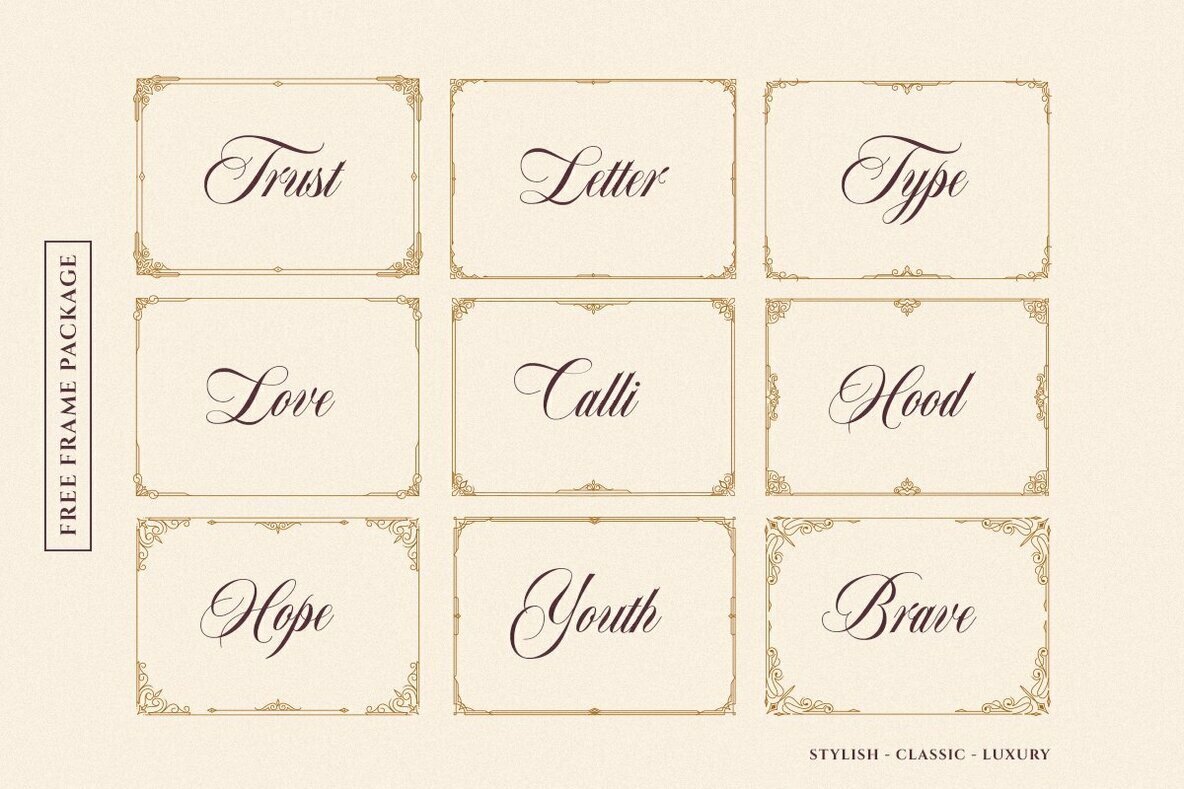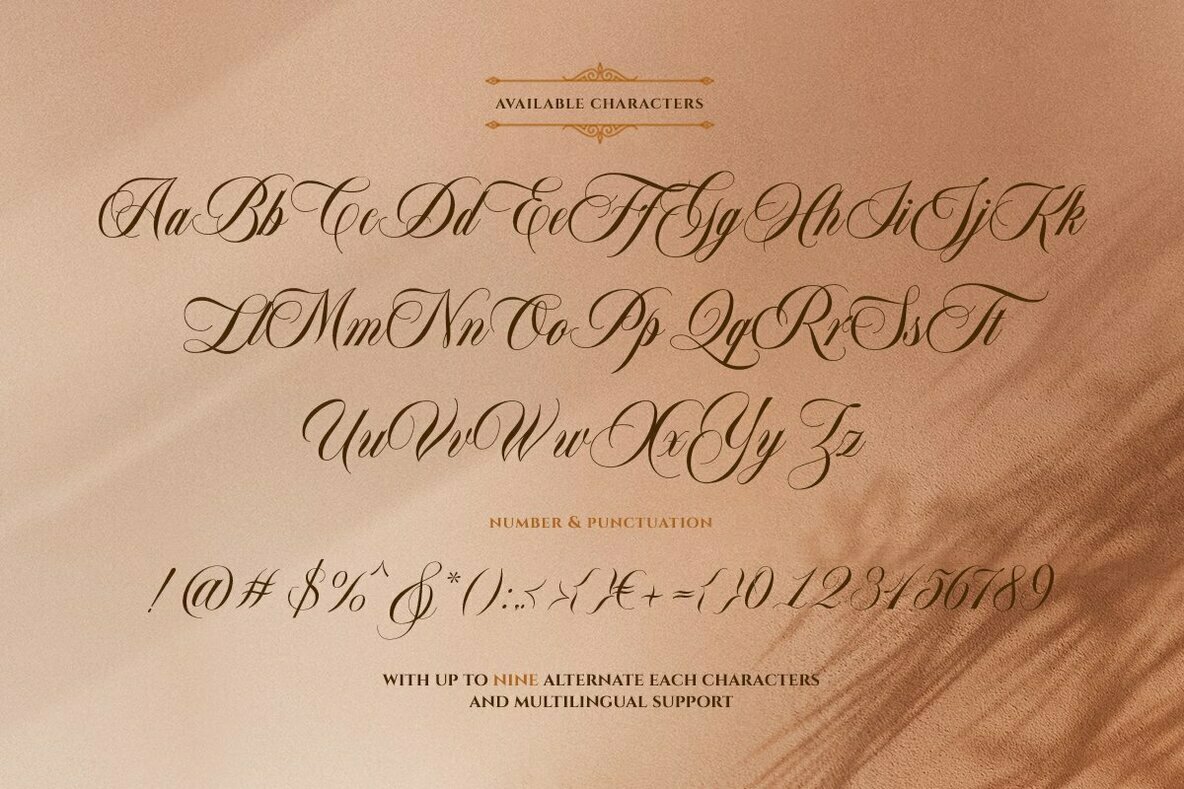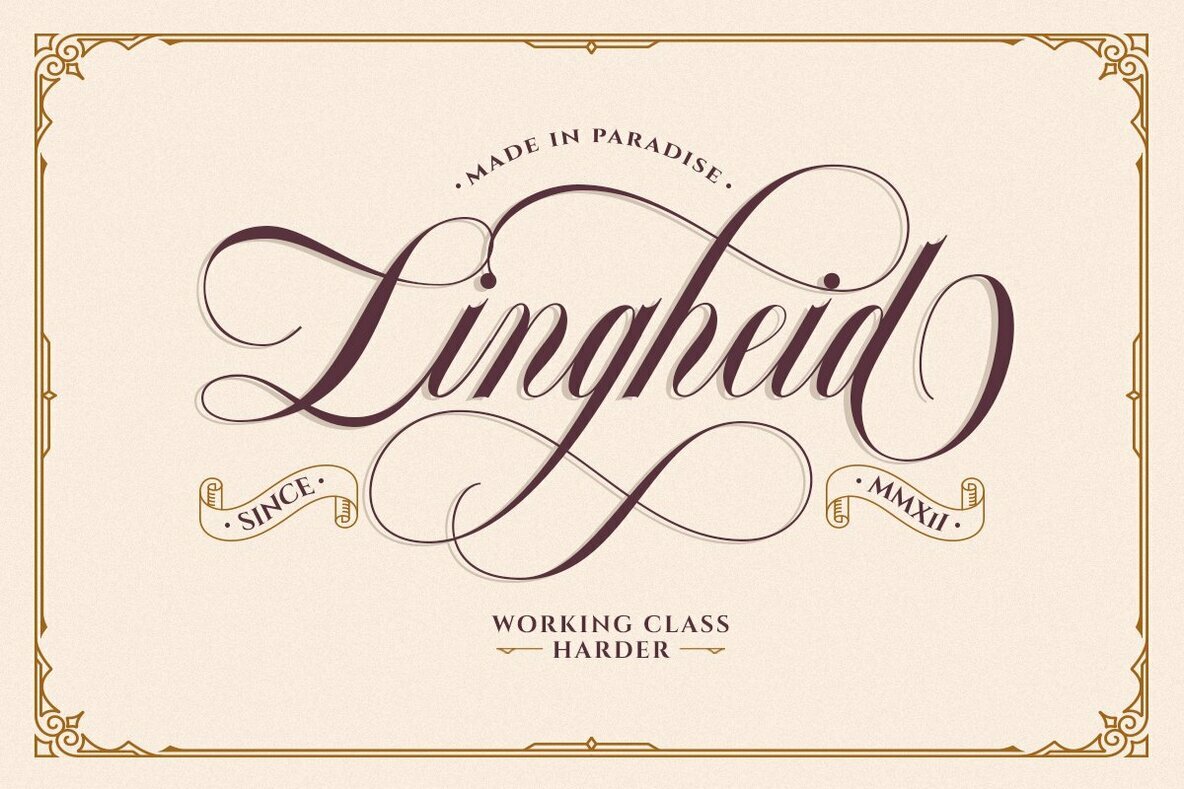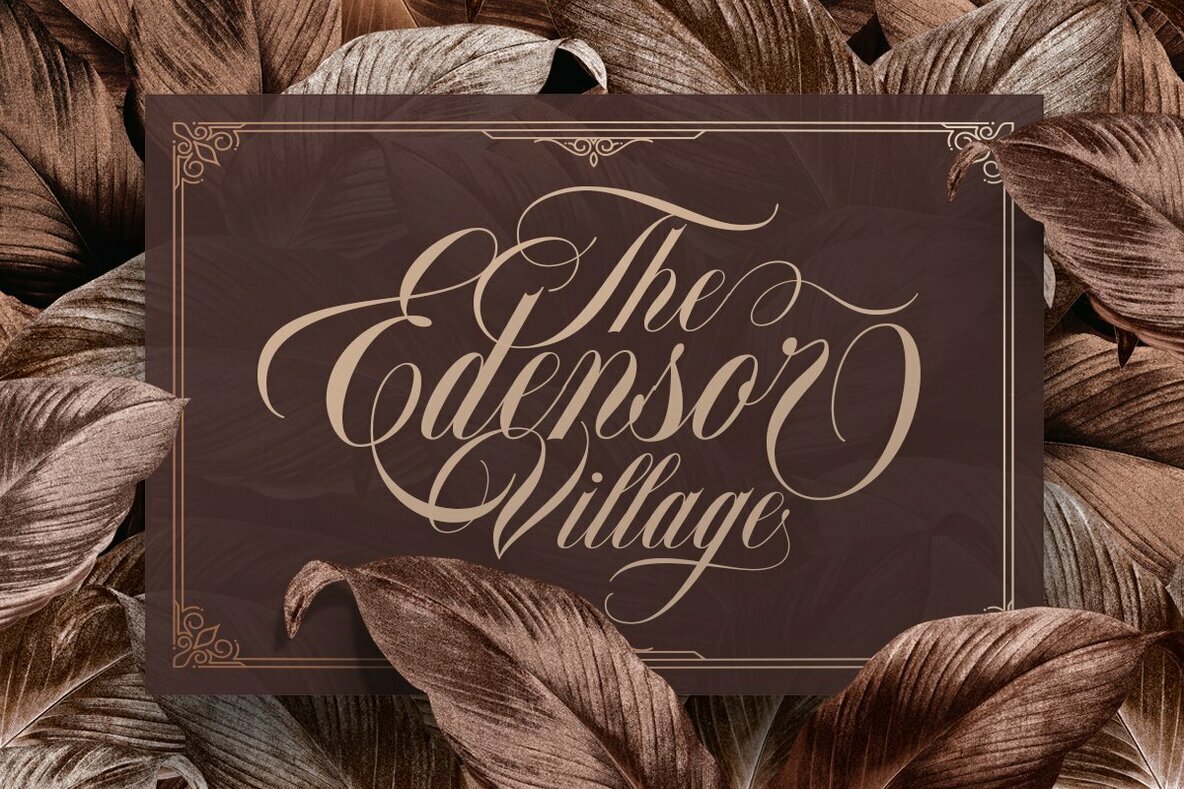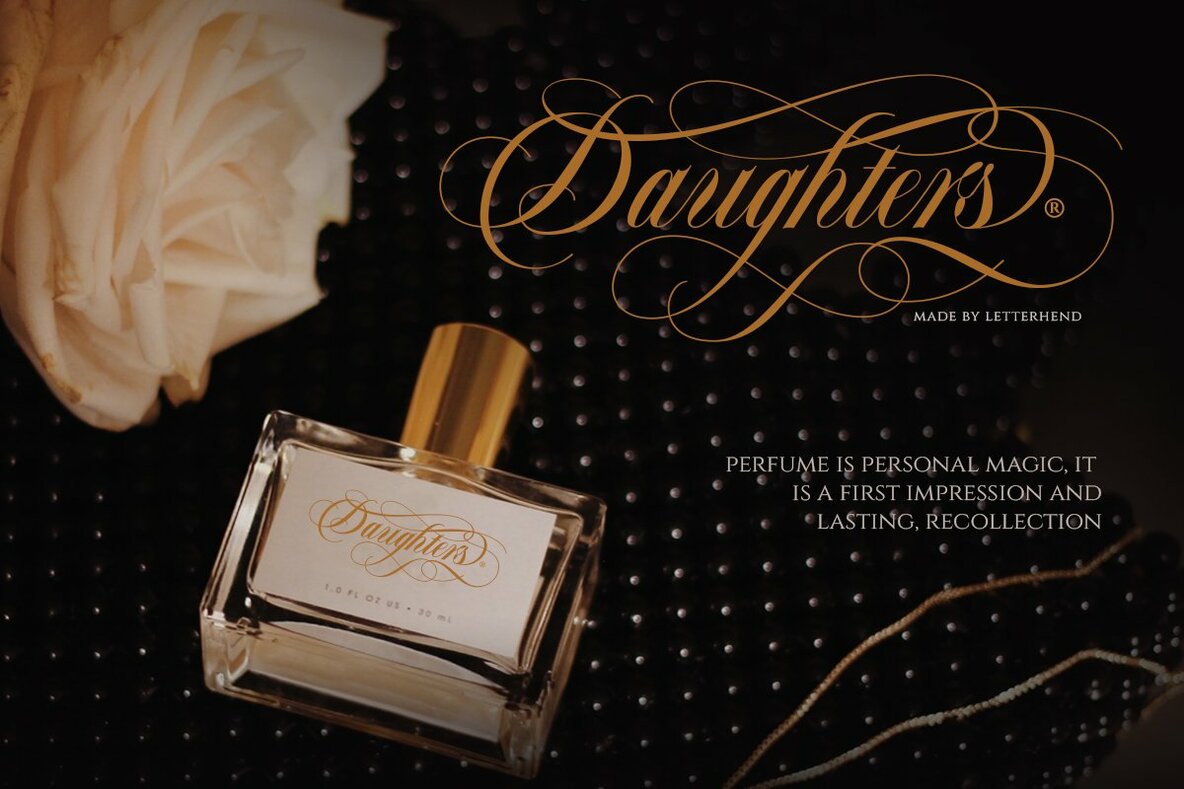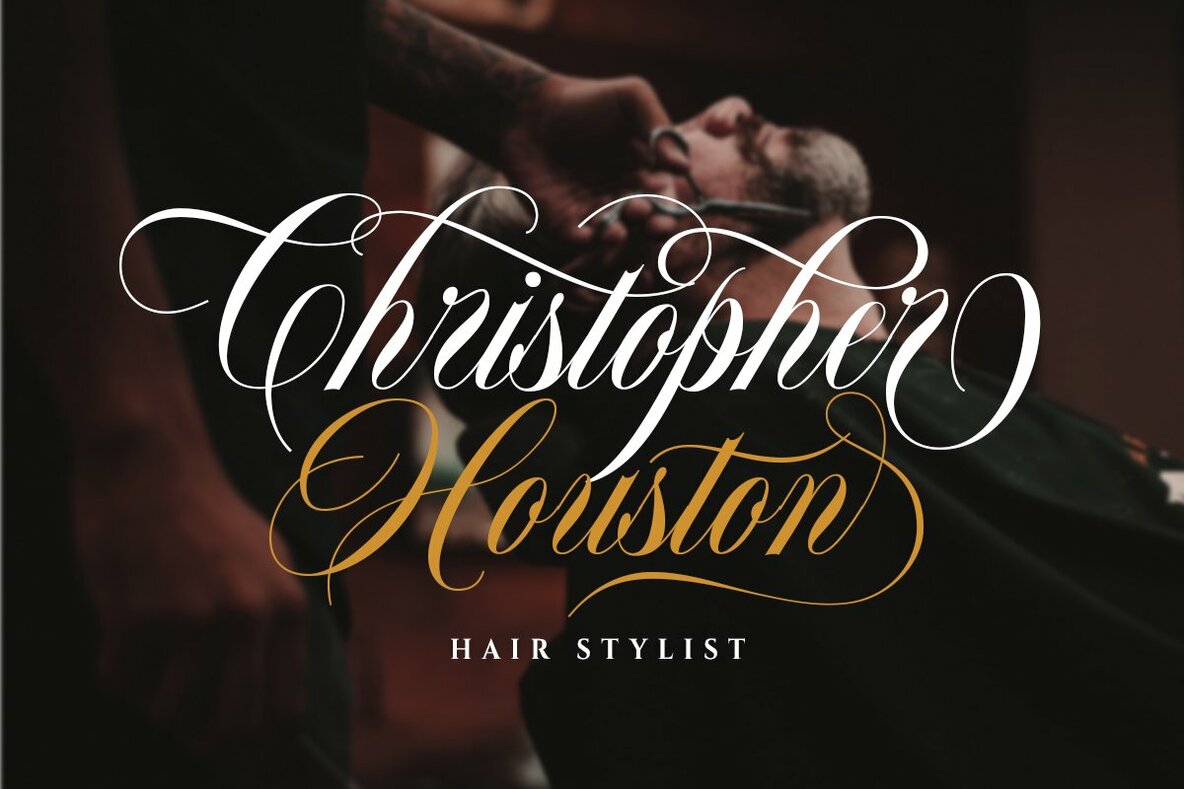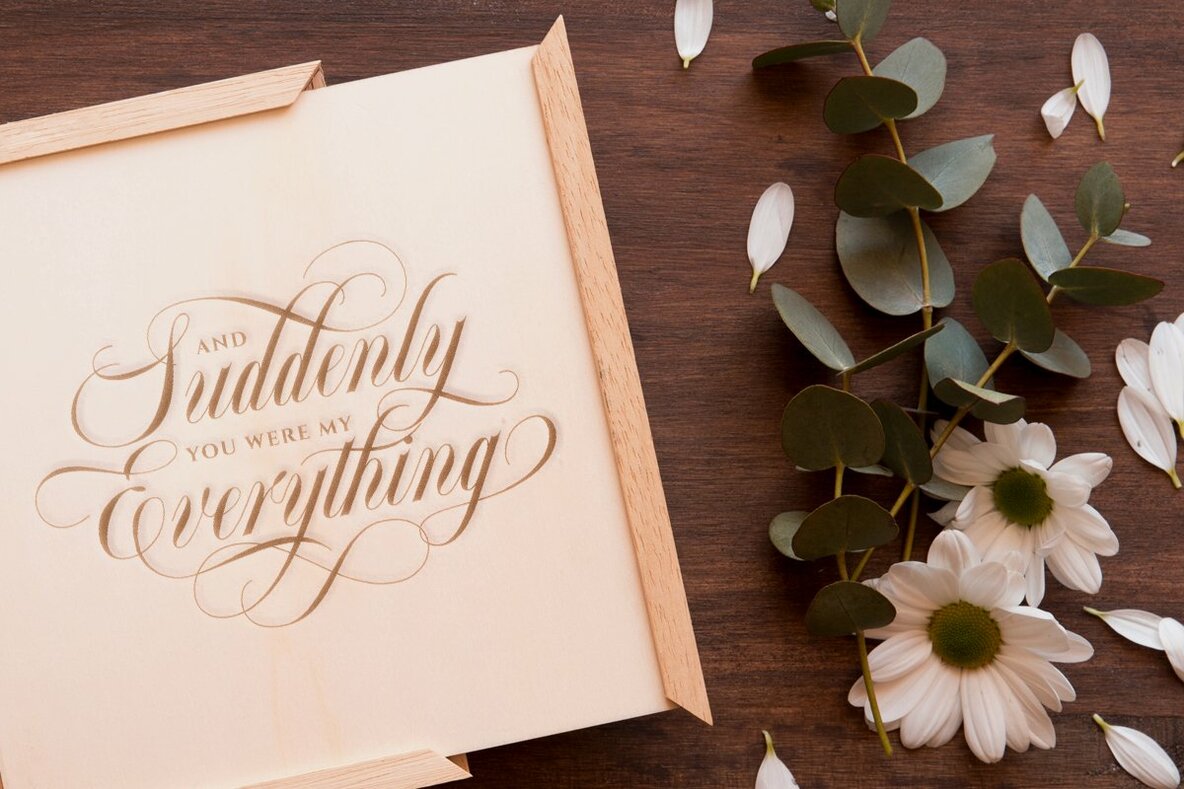
Bordemile Font
Bordemile and Vintage Frames (1 font)
Bordemile by Letterhend Studio is a sophisticated script font that brings a touch of luxury to every project. Its unique swashes define elegance, making it ideal for headlines, logotypes, and various branding applications. Whether you’re designing for apparel, invitations, packaging, or advertising, Bordemile offers a refined aesthetic that enhances creativity and captures attention.Bordemile Script: Elegant Flair with Unique Swashes